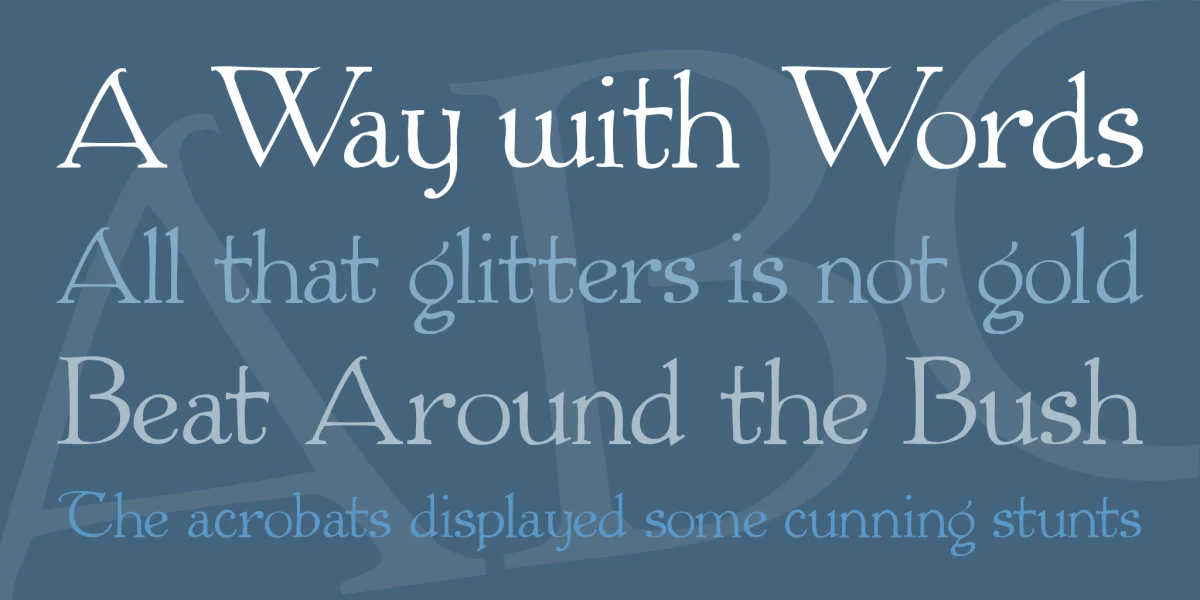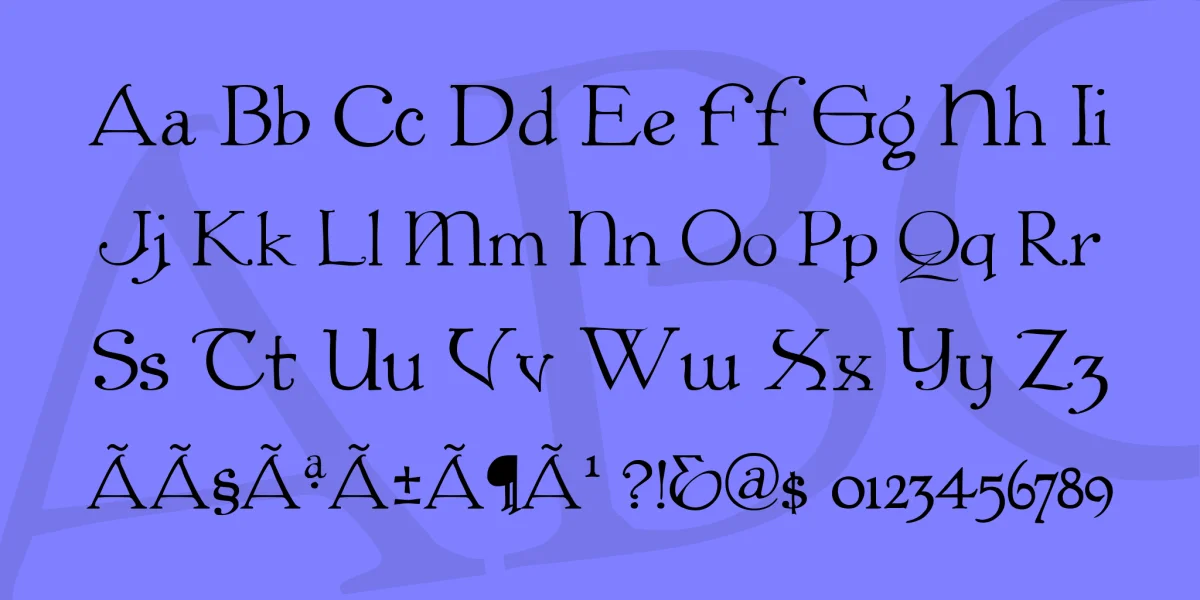
This font is based on hand lettering by Elizabeth Colwell from 1916, when war was raging and silent movies ruled. I have no idea who Elizabeth Colwell was. I never bothered to check. But her name figures in a few old lettering books, without any history to back it up. She could have been Victoria's mother for all I know. If you have any information about her and feel generous enough to share it, drop me a note please.
Anyhow. Enjoy the font and its alternates. And a tip of the hat to Fleisch for pulling this font out of her collection of old type books.